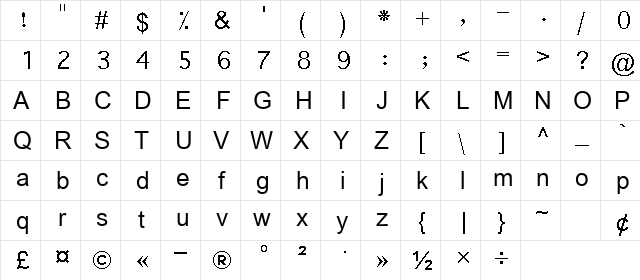
Nesf2 Regular
Design Context for Nesf2 Typeface
Nesf2 is a composed and adaptable typeface that performs quietly and consistently across a wide range of design contexts.